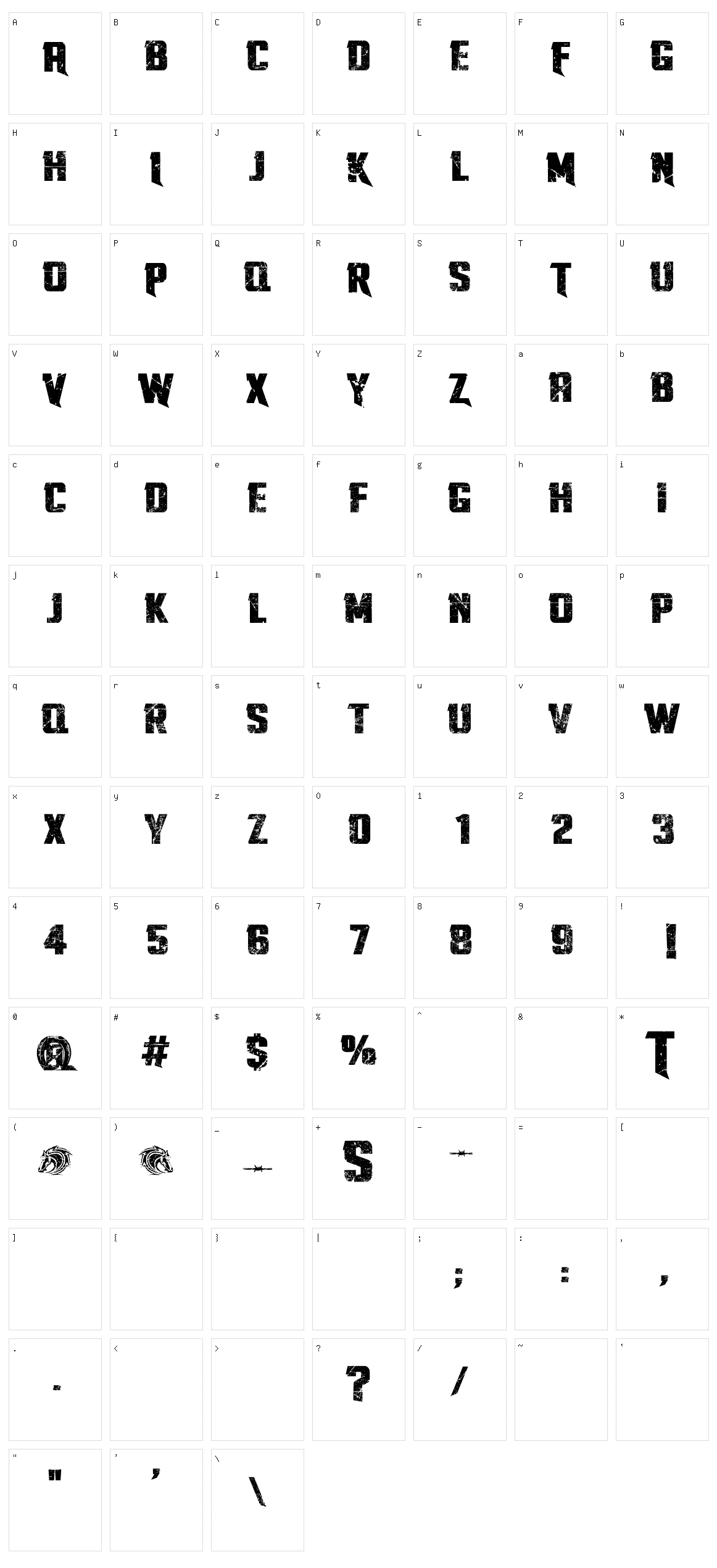
The free font Twisted Stallions is carefully designed by Herofonts™, showcasing a thoughtful balance of creativity and usability and falls under the Eroded font style. When you download the ZIP file, it contains only 340.84 KB of font files, making it lightweight and quick to download. Please review the license details below to understand permitted usage and distribution rights. If license information is not available, we recommend using this font for personal projects only or contacting the author directly for commercial usage permissions.